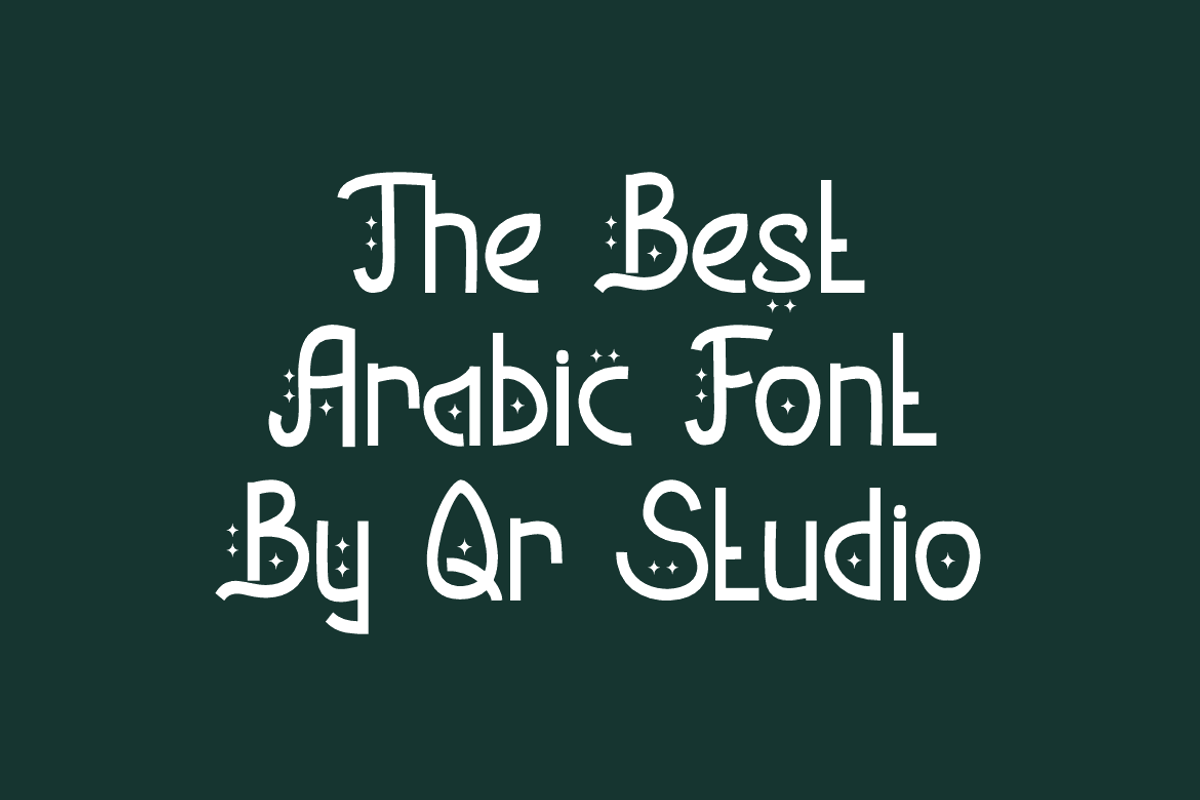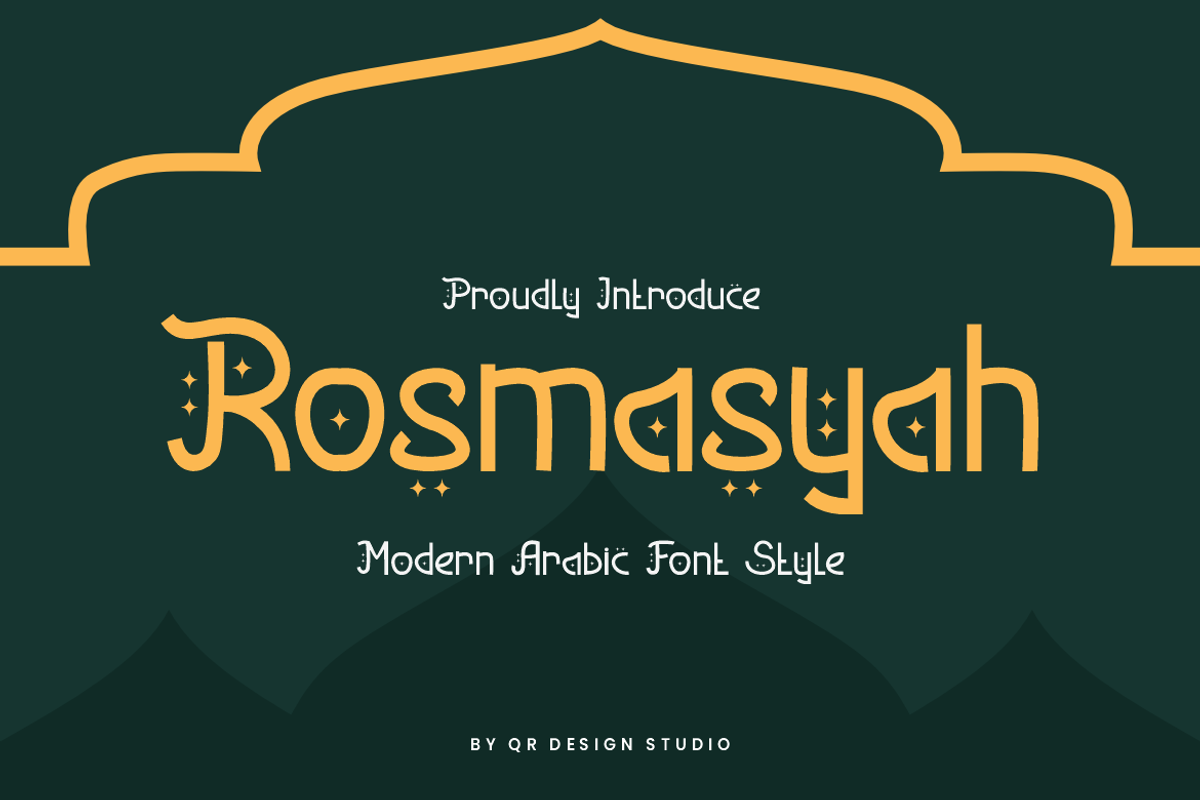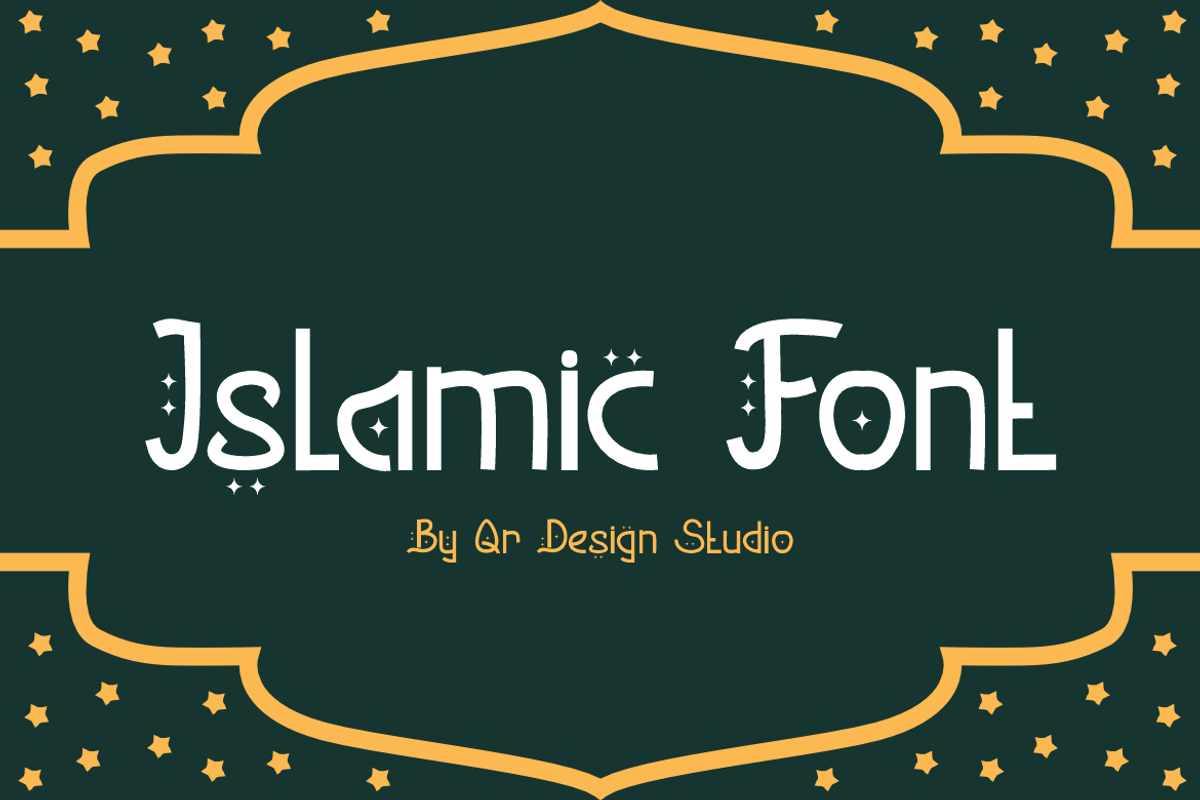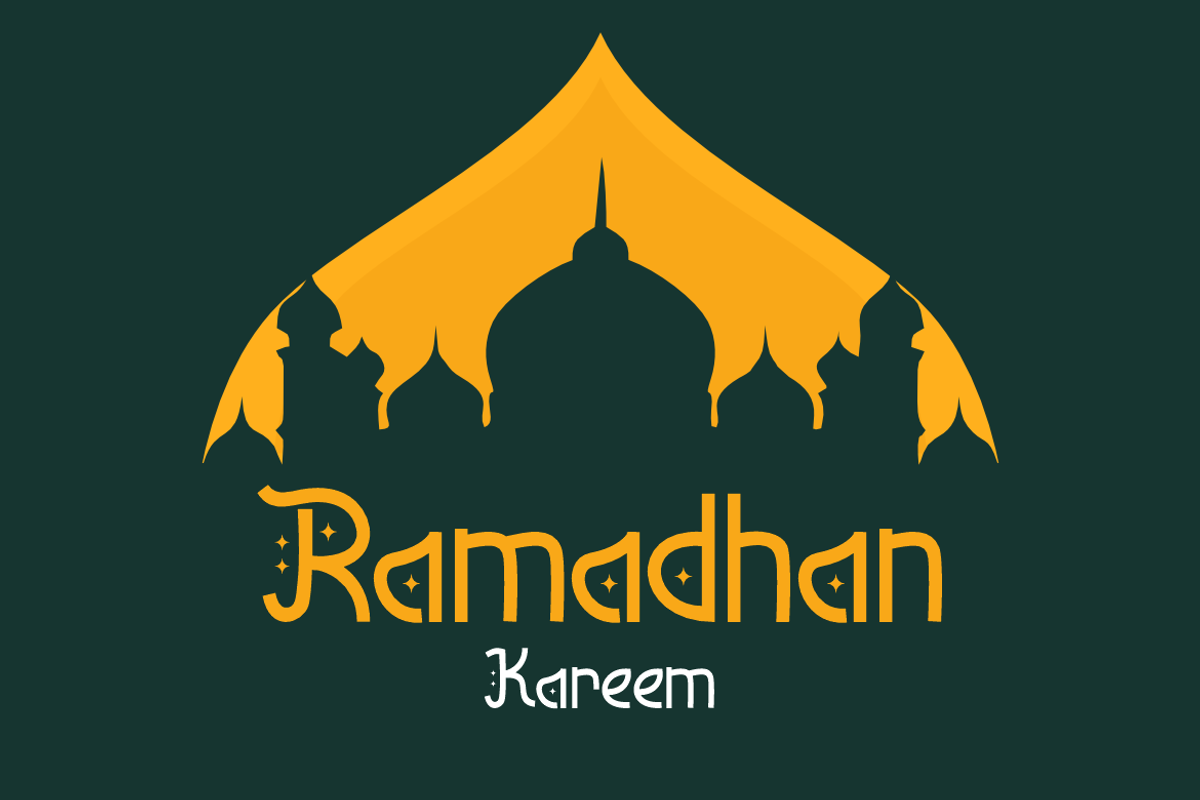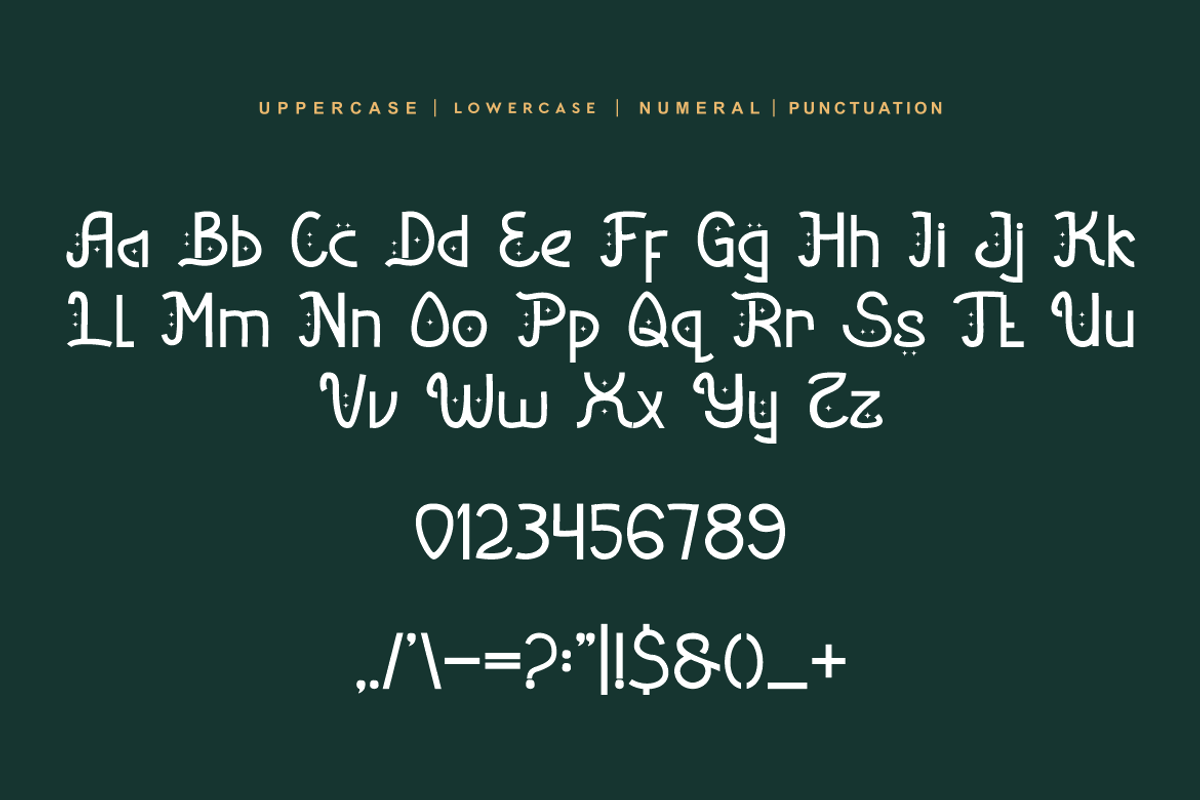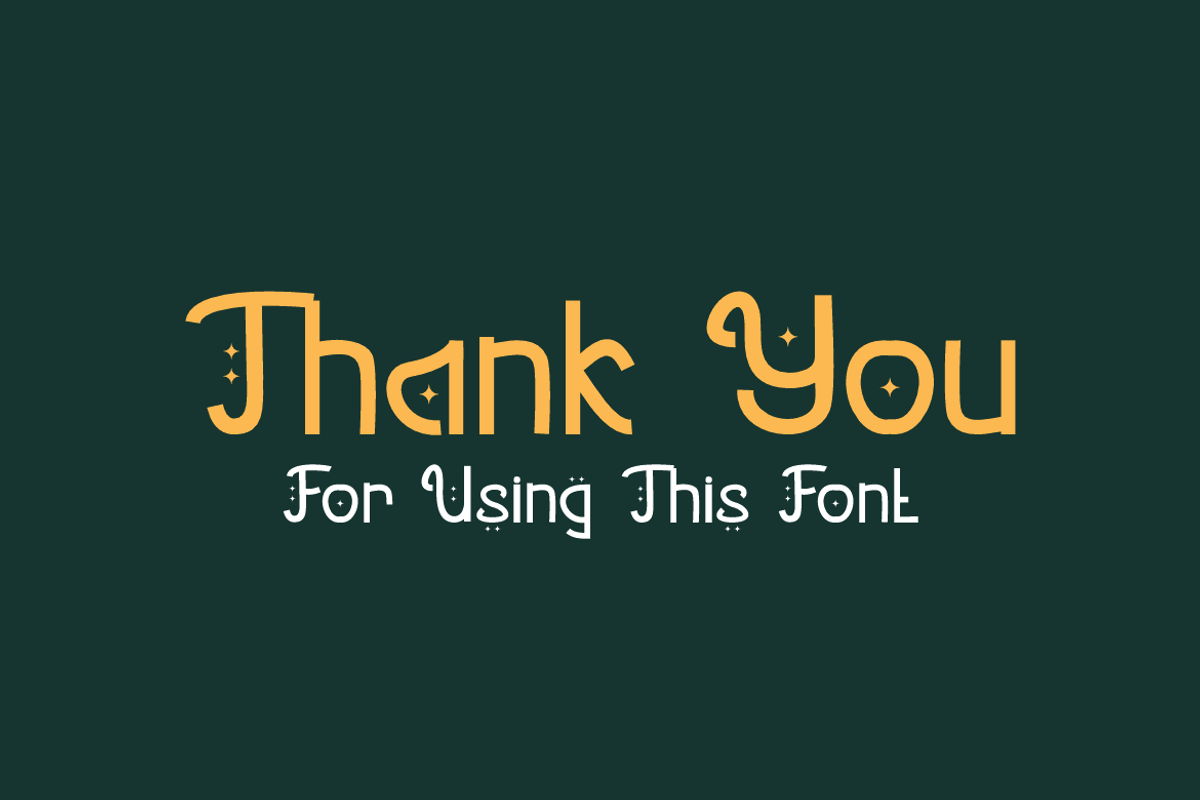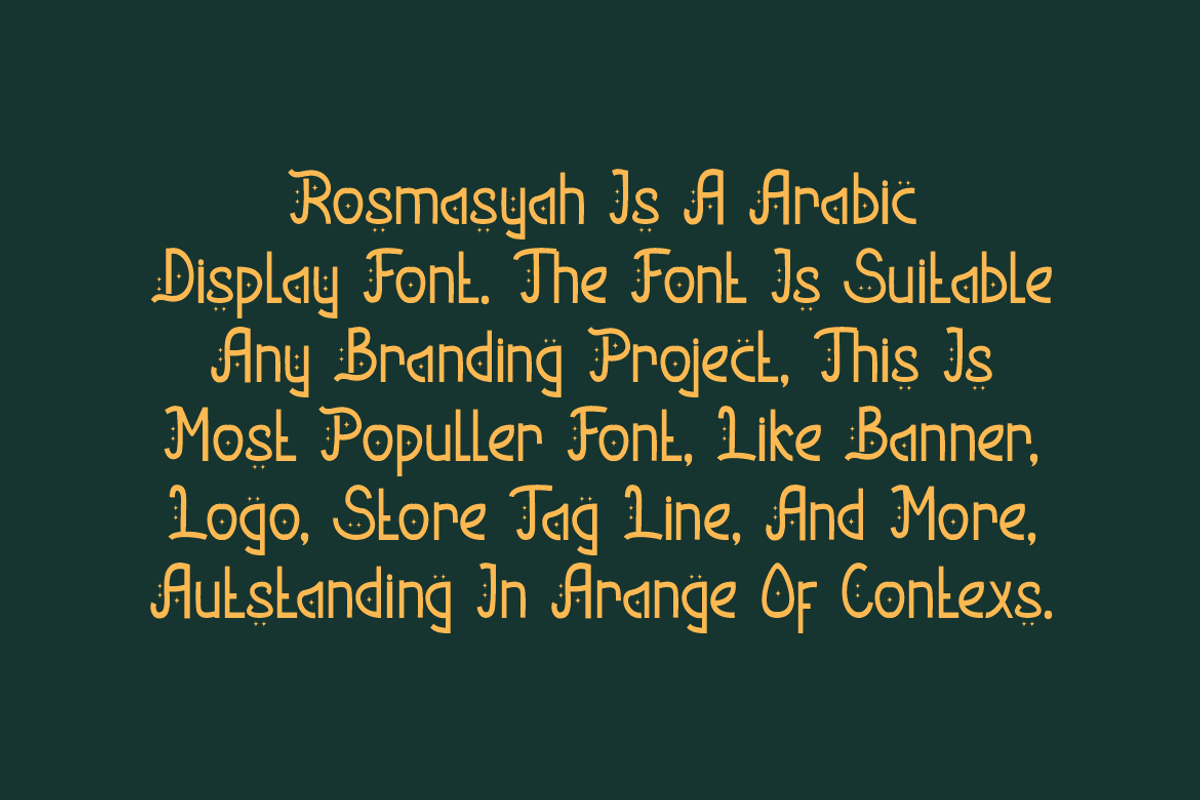
Rosmasyah - Arabic Font
Rosmasyah Font is a Arabic and authentic display font. The font is suitable for any branding project like poster, logo, islamic, and many more. Outstanding in a wide range of contexts.